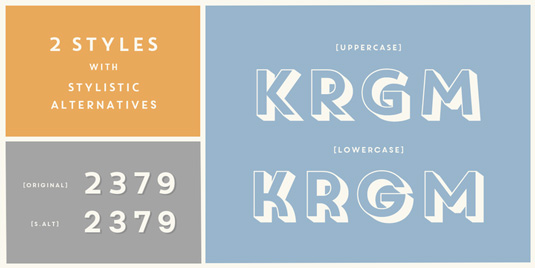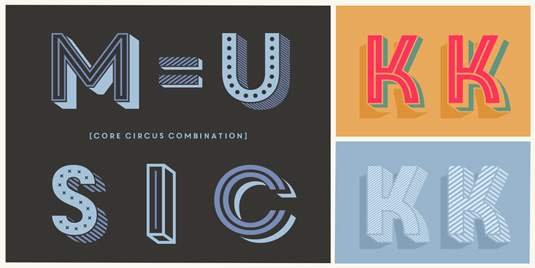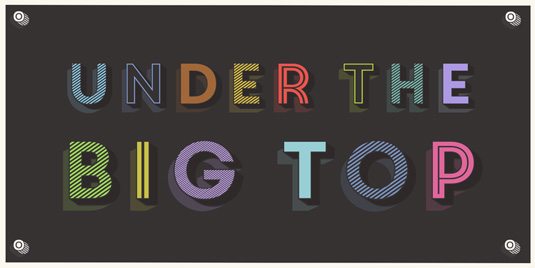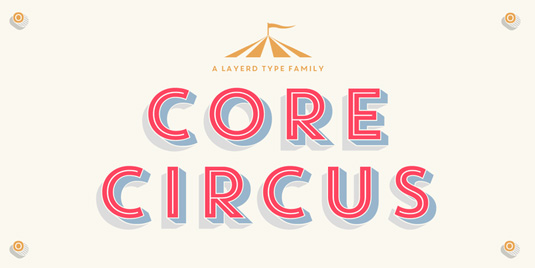
Font of the day: Core Circus
Core Circus by S-Core
Core Circus by S-Core is a layered type family, consisting of seven 3D effect layers, eight 2D effect layers and one shadow effect layer.
"The shape of Core Circus is simple but the combinations of effect fonts are impressive," the S-Core team say of the design. "Core Circus makes your works charming and special with endless combinations (at least 262,551 kinds). This family is really nice for book titles, headlines, logotypes and any artworks."